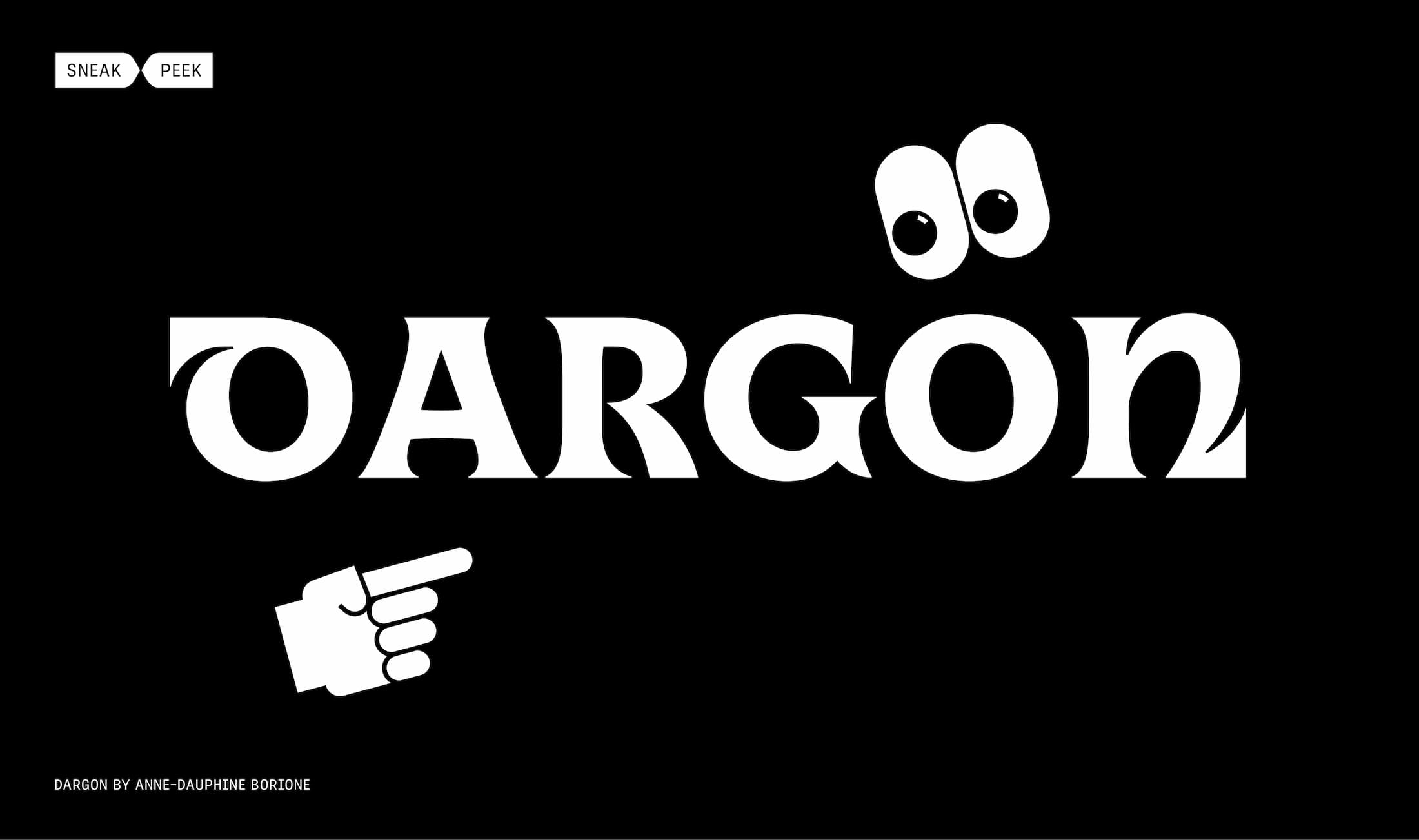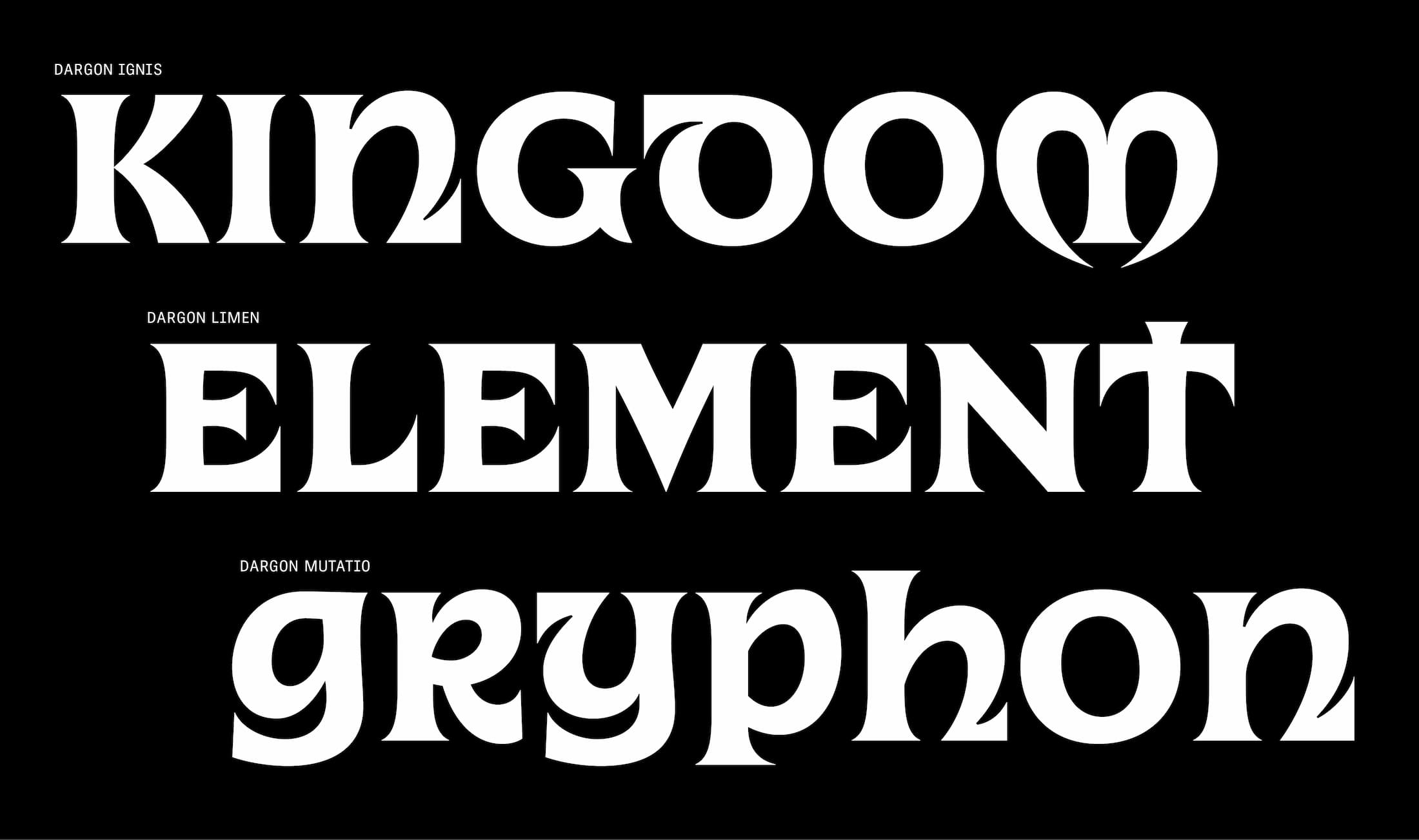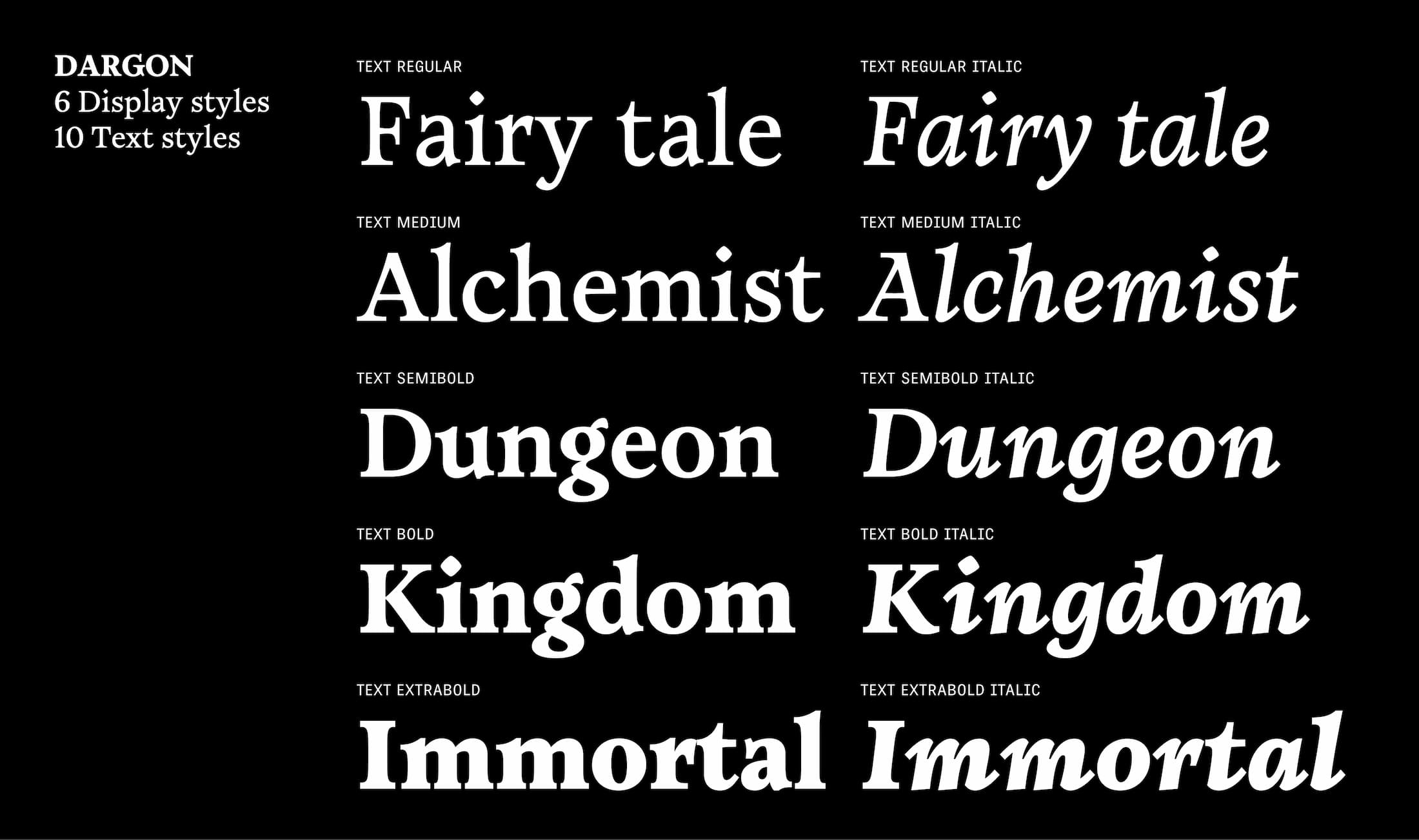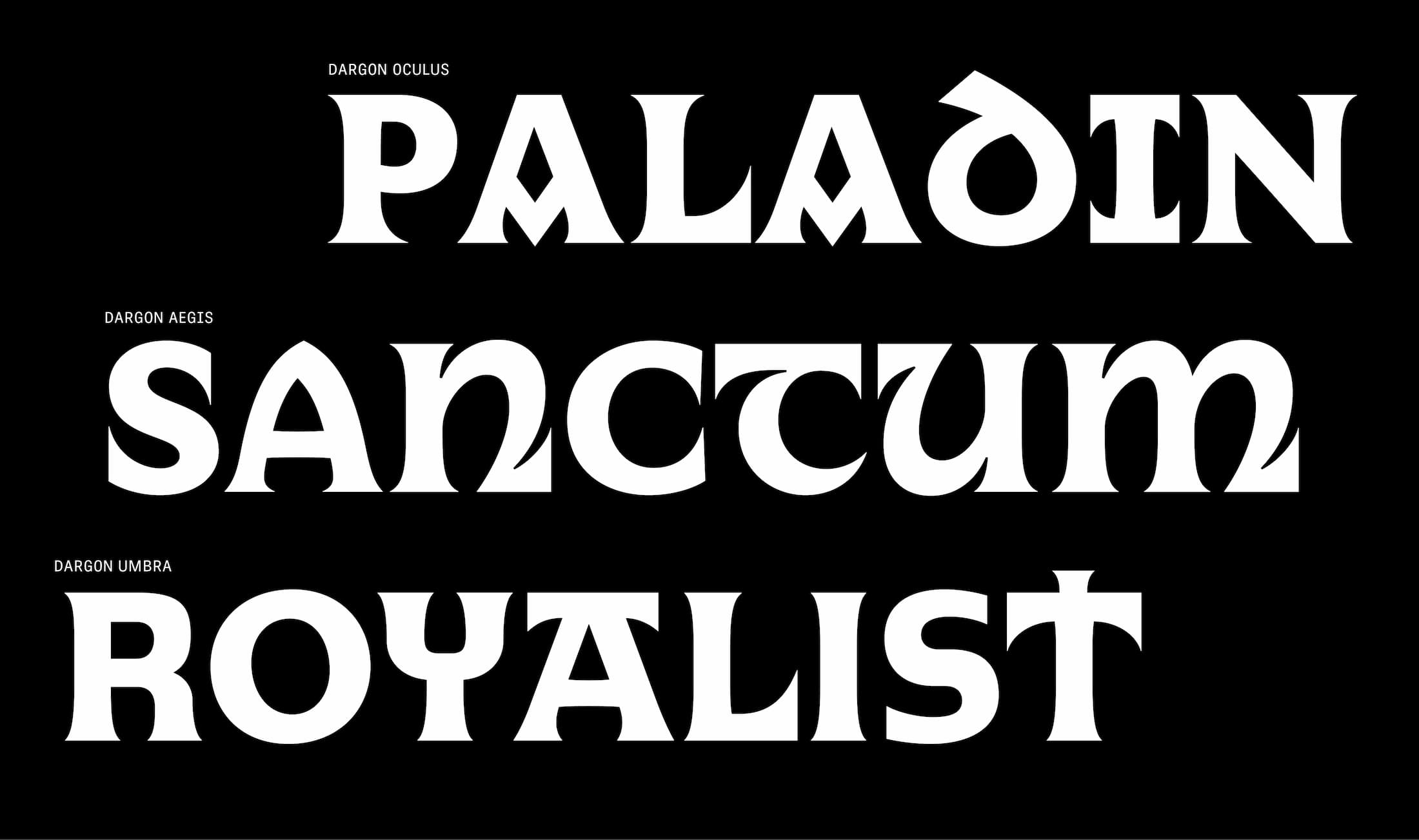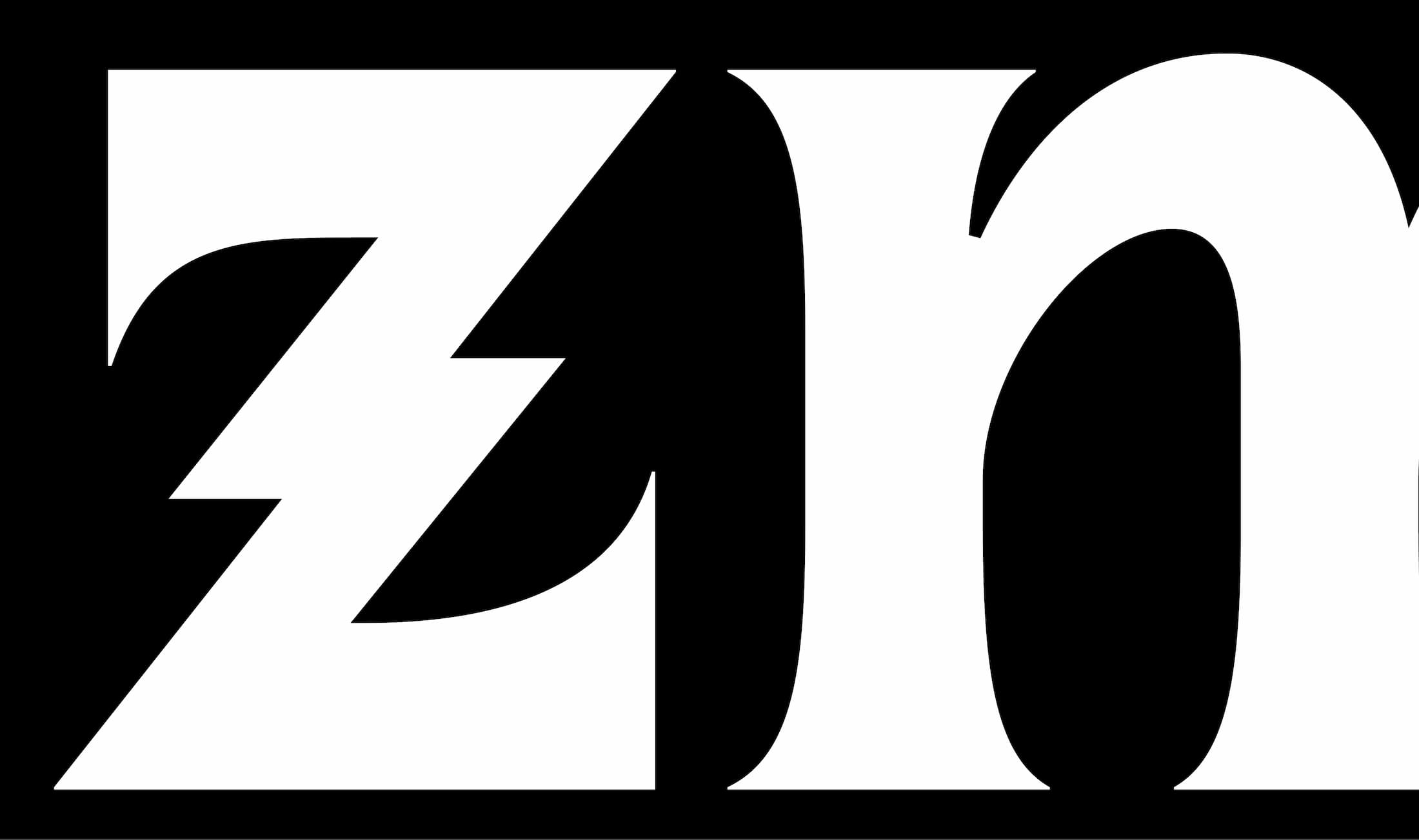
Dargon is coming. Are you ready?
Anne-Dauphine ‘Ando’ Borione’s eagerly-awaited Dargon type family is still a few weeks away, but we wanted to give you a sneak peek at one of the year’s most-eagerly awaited typefaces. Borne in the caves of the TypeMedia programme and forged in the flames of the Gerard Unger Scholarship, Ando created Dargon specifically for gaming and fantasy. And in the D&D alignment, she says Dargon is neutral good..
“I believe typography is a fantasy, an artistic endeavour, a universe in itself,” Ando says. “Type enhances my reality, it is a conduit for enchanting myself, a portal to realms yet unseen. One might see type as purely utilitarian; I see it as a powerful source of magic.”